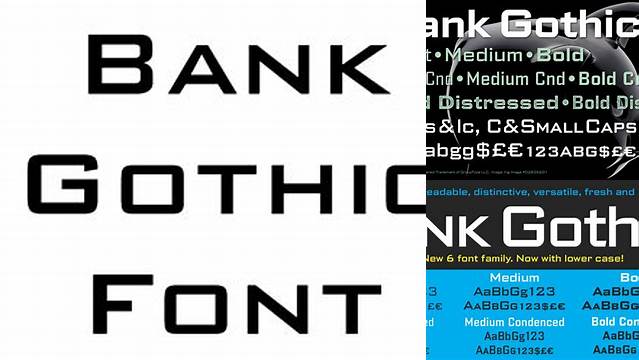
Bank Gothic Font: Guide, Usage, And Download
Hey everyone, let's dive into the fascinating world of the Bank Gothic font! This isn't just any typeface; it's a design with a unique history and a distinctive look that's made it a favorite for various applications. If you're curious about what makes this font so special, how to use it, and where to find it, you've come to the right place. This article is your go-to guide for everything Bank Gothic. We'll cover its origins, design characteristics, best practices for usage, and even some alternatives, making sure you're well-equipped to use this awesome font effectively. Ready to get started?
The Origins and History of Bank Gothic
So, where did this awesome font come from, right? Bank Gothic, originally designed by Morris Fuller Benton in 1904, was created for the American Type Founders. Now, the cool thing about its design is how it's evolved from the early 20th century to today. It was initially intended for use in headlines and display purposes, which makes sense given its bold, strong presence. The name itself, 'Bank Gothic', hints at its frequent use in financial institutions – think about the kind of official, trustworthy vibe it gave off. Over the years, it has transitioned from its initial, specialized role and has been adopted for various purposes, from advertising to branding and even in some creative projects. Its timeless appeal lies in its clean, geometric design and the professional image it conveys. This long history and the adaptability of Bank Gothic show how a good font can withstand the test of time and remain relevant across different eras and design trends. Benton was a master of his craft and his legacy continues to influence design today.
The early 1900s were a time of rapid industrial and technological advancement, and the design aesthetic reflected these changes. Bank Gothic fit perfectly into that era, with its clean lines and modern feel. It stood out from more ornate and decorative fonts that were also popular during that time. The font's impact can still be seen in its extensive use in the design world today. It's not just a historical artifact; it is still being used, which shows its versatility and enduring appeal. The continuous use of Bank Gothic, even after a century, is a testament to its superior design and ability to blend perfectly with all kinds of design requirements. Its adoption and adaptation across different areas, including digital interfaces, shows its incredible adaptability, which is a key feature of its design.
Morris Fuller Benton: The Creator
Morris Fuller Benton's design talent played a critical part in the success of Bank Gothic. He was a top-notch typeface designer, and his impact on typography is pretty significant. Benton was the chief designer at the American Type Founders for many years, and he made many fonts during his career. His goal was to make sure that typefaces were both beautiful and useful, which is what he did with Bank Gothic. His precision and attention to the details of its structure show the perfect balance between design and usefulness. Benton's fonts are still used by many designers today, which proves his skill and how he changed the world of typography. His work on Bank Gothic is a perfect example of his design skill and the quality of his output.
The legacy of Morris Fuller Benton continues to live on in his work. He created many different typefaces, each with its own special traits and purpose. Bank Gothic is among the most successful and long-lasting of these fonts. Benton's commitment to quality and style had a huge influence on graphic design, and his fonts are still used by designers all over the world. His work shows how design can combine history and usefulness to make timeless fonts that continue to engage and inspire.
Key Characteristics of Bank Gothic Font
Alright, let's break down what makes the Bank Gothic font so recognizable, shall we? The first thing you'll probably notice is its bold, geometric design. It has a very strong, solid appearance with straight lines and squared-off shapes, which is really easy on the eyes. The font's structure is neat and uniform, with very little contrast between thick and thin strokes. This gives it a clean and contemporary look, perfect for a wide range of uses. Another important feature is its legibility, even in smaller sizes. Unlike some more ornate fonts, Bank Gothic is easy to read. This makes it great for headlines, captions, and any text where clarity is important. The font has a consistent, uniform design, creating a feeling of authority and modernity. It doesn't have serifs, which are the small strokes at the end of some letters, adding to its clean look. This, along with its monoline structure, gives it a sleek, modern aesthetic that suits many designs.
So, what does this mean practically? The combination of boldness and legibility makes it an excellent choice for communicating essential information in a clear, direct manner. It avoids being fussy or overly decorative, ensuring that the message is the priority. Whether it's used in a financial document, a tech company's branding, or an artistic project, the font communicates the information with great efficiency. Its ability to deliver the intended message with accuracy and effectiveness is a testament to its design. This makes it perfect for many applications where clarity and professionalism are key. The design is also very adaptable, which means it can be used in a variety of contexts without losing its impact. The simplicity of its design means it will stay relevant, regardless of design trends.
The Style and Appearance of Bank Gothic
The font's appeal also extends to how it appears on different media. Its clean lines and bold weight ensure that it looks good across many different formats, including print and digital displays. Whether it is used on a website, a business card, or a large poster, it maintains its visibility and readability. The font's uniformity makes it a great choice for building brand consistency. This means that it can be used for different applications without losing its visual identity. This consistency is very important, because it helps to create a strong brand identity that people can instantly recognize. The font's versatility makes it ideal for different types of communication, including professional and creative projects. The strong, clear look of Bank Gothic makes it ideal for many different styles of design.
Bank Gothic Font Usage and Best Practices
Now, how do you use Bank Gothic effectively, right? Well, the key is to use it where its strengths shine. Bank Gothic is perfect for headlines, titles, and headings. Its bold style commands attention, making it ideal for drawing the reader's eye to the most important information. It is also well-suited for branding and logos, especially in industries where a sense of trust and authority is important. Think of the professional look it gives. To make sure it looks its best, keep these best practices in mind. First, choose your sizes wisely. Because it's a display font, use it for bigger text. For body text, its boldness might make it harder to read. Use it in the right context to get the best results. Also, keep the design simple to make the most of its clean lines. Pair it with other fonts, like a simple sans-serif or a serif font, to make sure you don't overwhelm the reader. Use a font that complements Bank Gothic and helps you to give the right message. Make sure your color choices support your brand and the intended message. The clarity and visibility of Bank Gothic makes it a great choice. Make sure you follow the guidelines for maximum impact. The focus should always be on clarity and brand identity.
Choosing the Right Size and Weight
When it comes to using Bank Gothic, the size and weight make a huge difference in how it looks. The right size ensures that the font's impact is maximized without making the layout hard to read. For titles and headings, larger sizes are best to highlight the strong, bold appearance of the font. In smaller sizes, Bank Gothic's clarity and readability are still very effective. In general, using heavier weights is recommended to help it stand out in different design contexts. Different applications benefit from using these settings in different ways. For example, a website header might benefit from a large, bold font, whereas smaller text can be used effectively in branding materials. Using the right size and weight in your designs will help to maintain readability and ensure that the message gets across. The font's design is really important when choosing sizes and weights, which can help you to create a balanced and clear design.
So, there you have it, guys! Bank Gothic is a really cool font with a rich history and a design that's still relevant. From its beginnings in the early 20th century to its continued use today, it has proven to be a versatile and effective choice for various design applications. By understanding its characteristics, knowing best practices, and finding reliable sources, you can start using this font effectively. Whether you're designing a logo, making a headline, or just looking to improve your font knowledge, Bank Gothic is a classic choice! We hope this guide has helped you see the world of this awesome font and given you the confidence to use it in your projects. Keep experimenting, and happy designing!